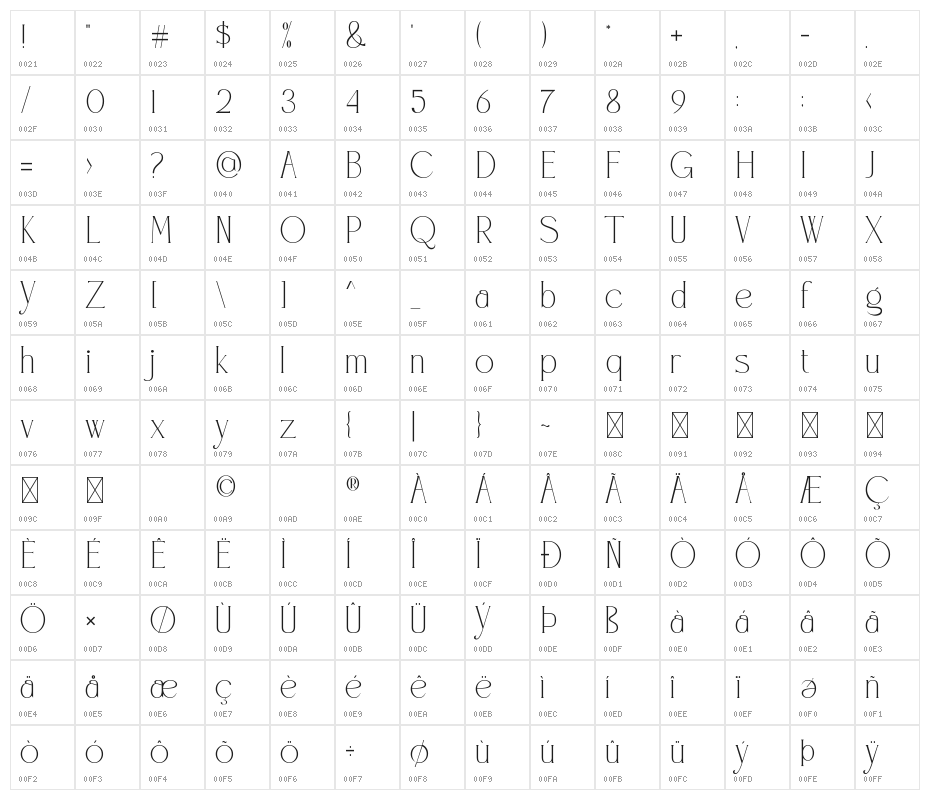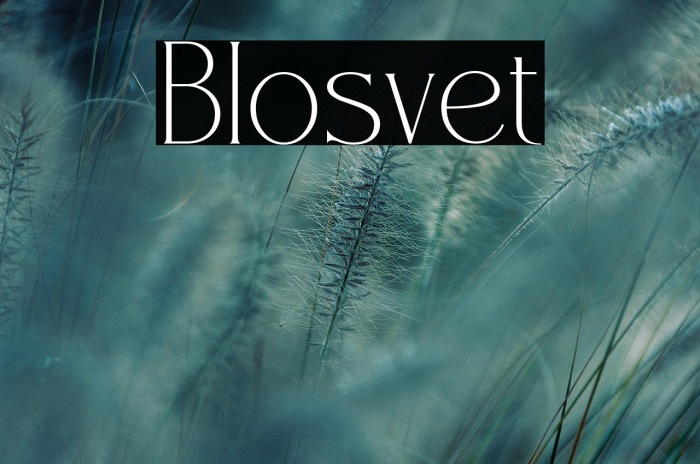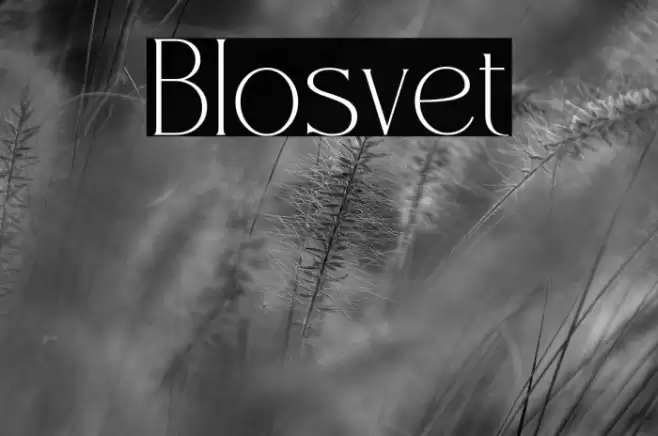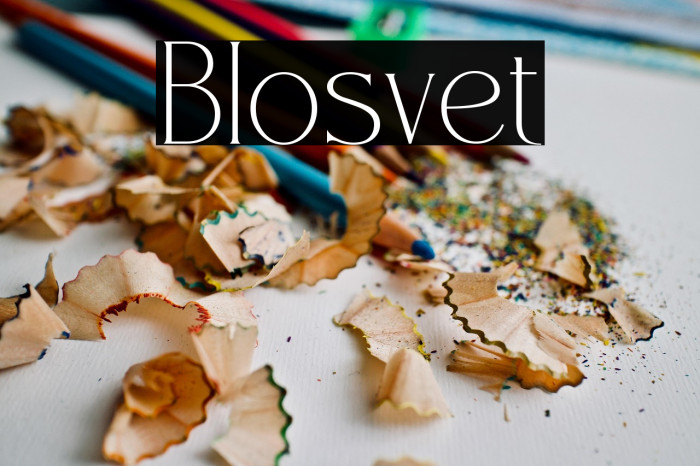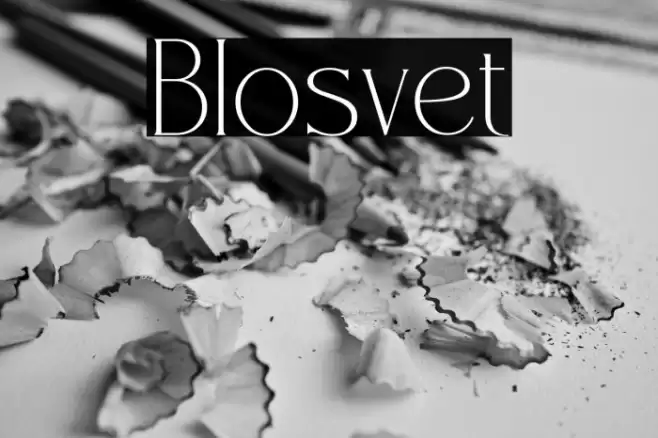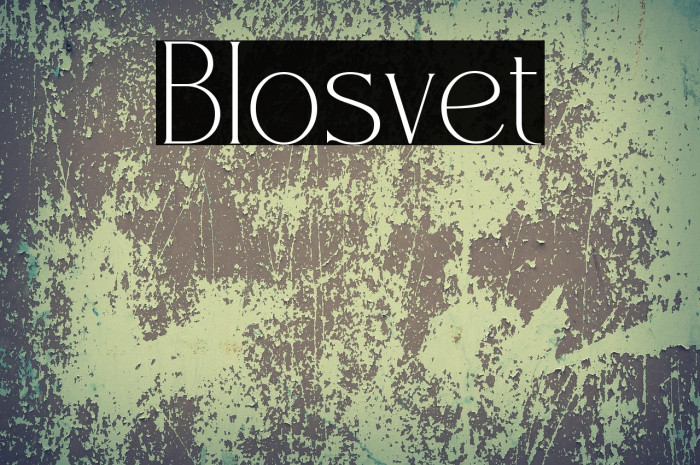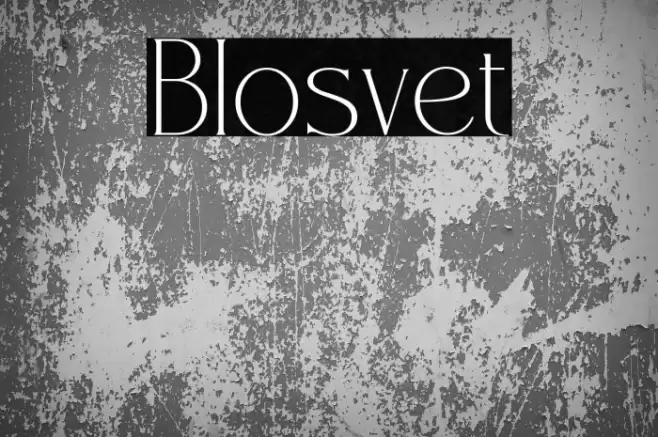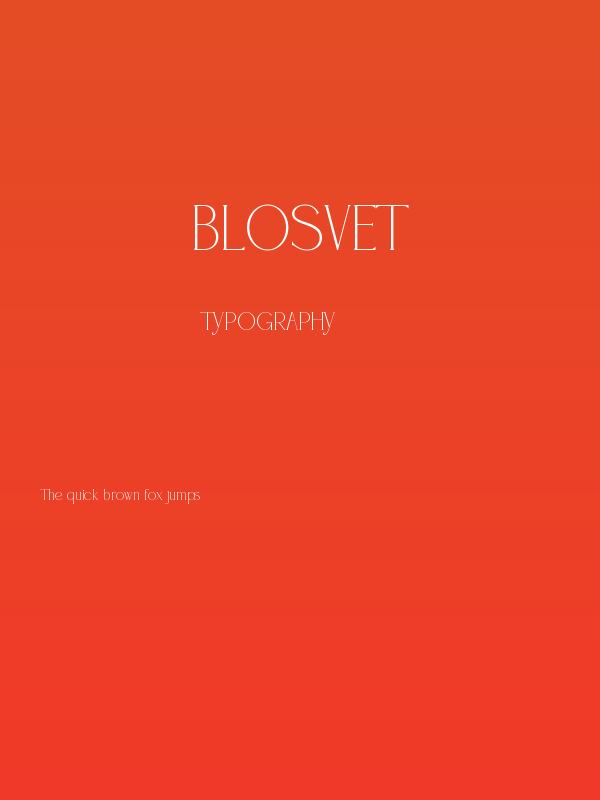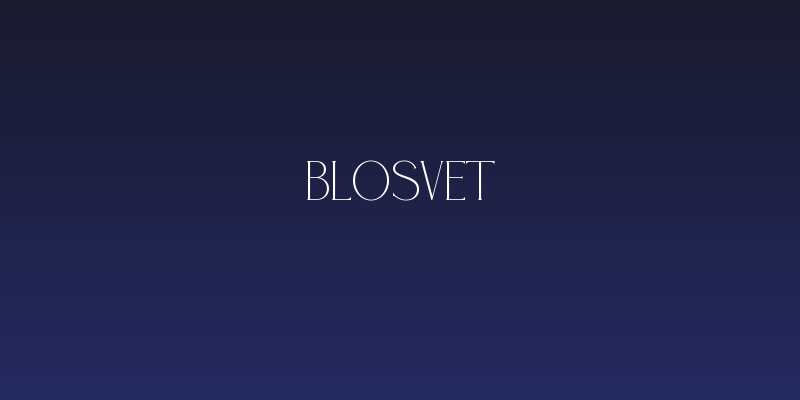
Blosvet Font
Blosvet Description
This font features a modern and elegant serif style with thin, elongated strokes and high contrast between thick and thin lines. The characters have a refined and sophisticated appearance, with a slight curvature that adds a touch of elegance. The uppercase letters are tall and graceful, while the lowercase letters maintain a consistent style with a slightly more rounded form. The numerals are clear and distinct, matching the overall aesthetic of the font. Special characters are well-integrated, maintaining the font's sleek and stylish look.